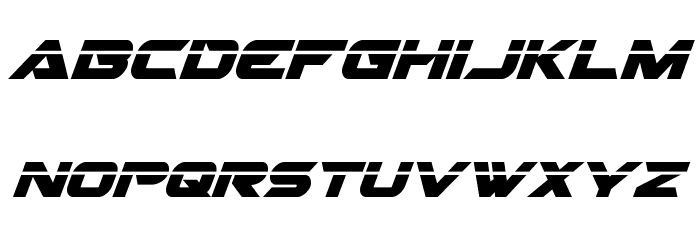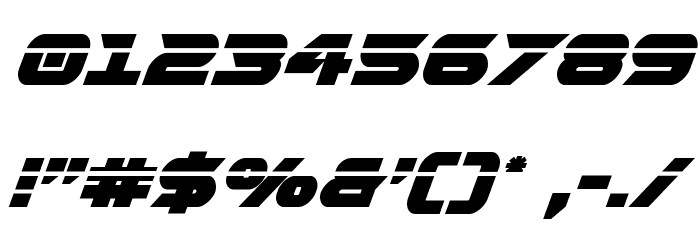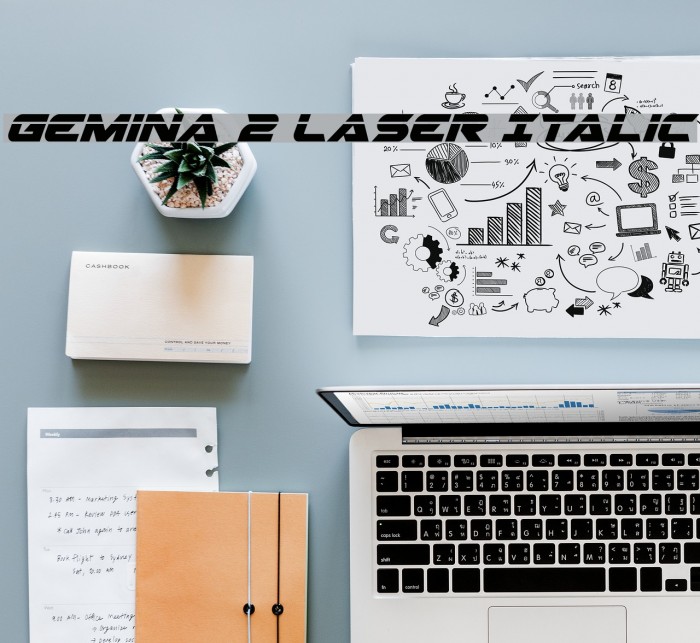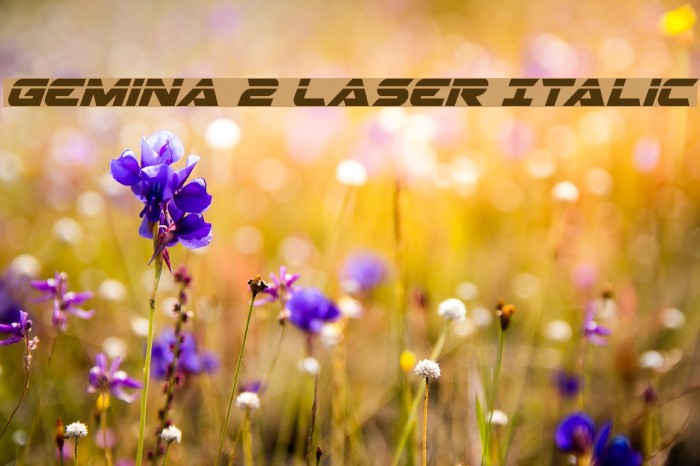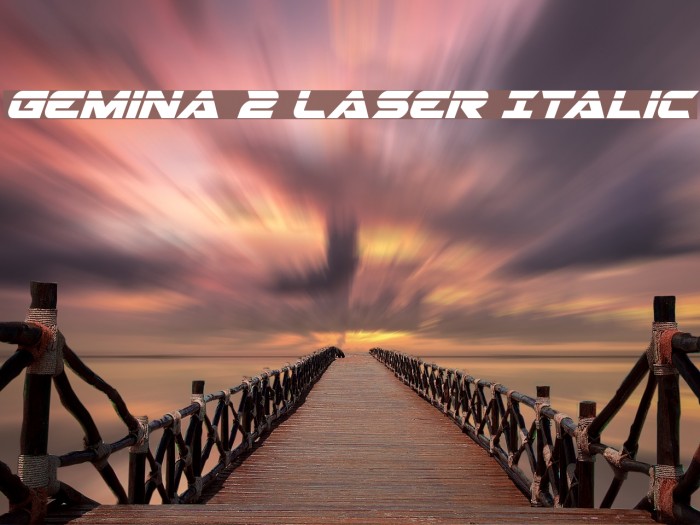
Gemina 2 Laser Italic Font
This font features a futuristic and angular design, characterized by sharp edges and a slanted, italicized posture. The letters are bold and impactful, with a distinct geometric style that suggests speed and modernity. The uppercase and lowercase letters maintain a consistent style, with each character exhibiting a unique cut or angle that enhances the overall dynamic appearance. The numbers and special characters follow the same aesthetic, ensuring uniformity across all glyphs. This font's bold and italic nature makes it stand out, ideal for projects that require a strong visual impact.
A bold, italicized font with a futuristic, angular design.
- Proposed Projects: Ideal for sci-fi themed projects, technology branding, video game titles, and futuristic posters.